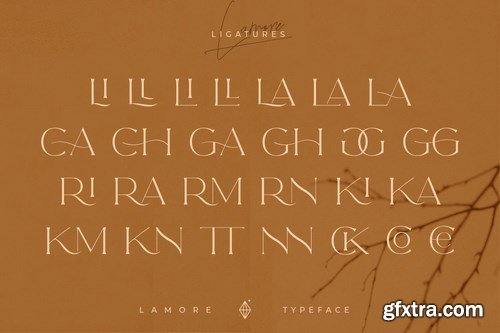
The Lamore Sans & Script Collection is a Minimalist Modern Elegant font with Signature script font. Full of beautiful ligatures, tons of special alternative glyphs, ornament and multilingual support. It's a very versatile font that works great in large and small sizes. Elegant Karin is perfect for branding projects, Logo design, Clothing Branding, product packaging, magazine headers, or simply as a stylish text overlay to any background image.